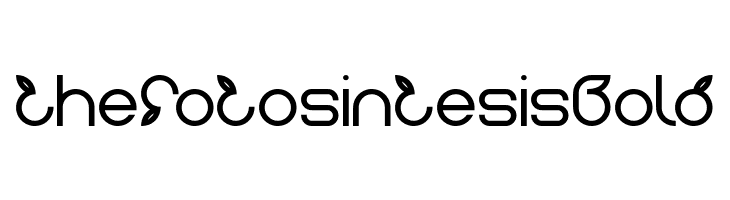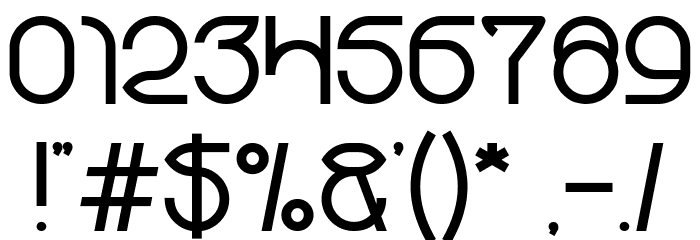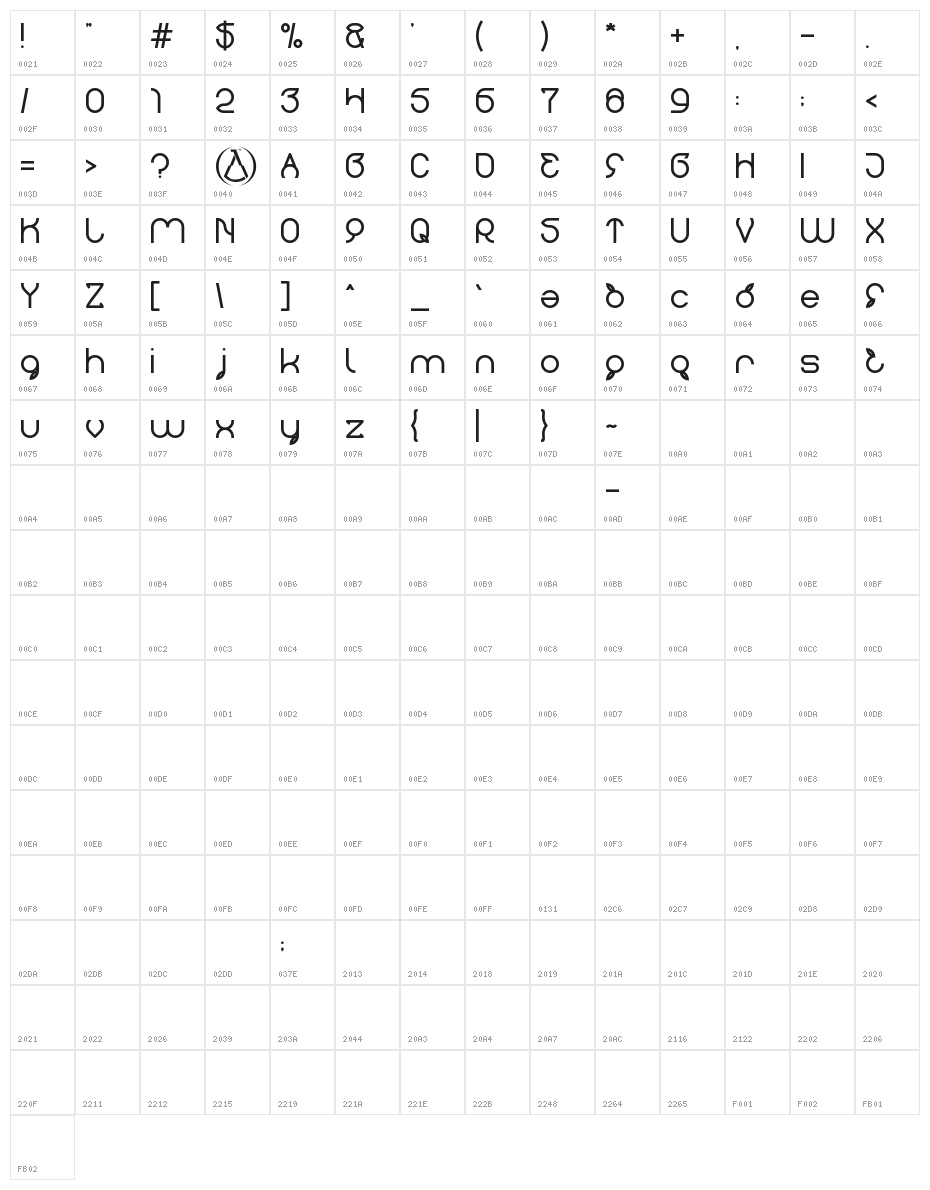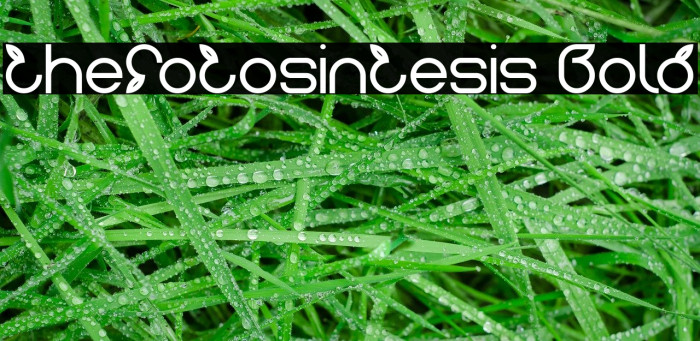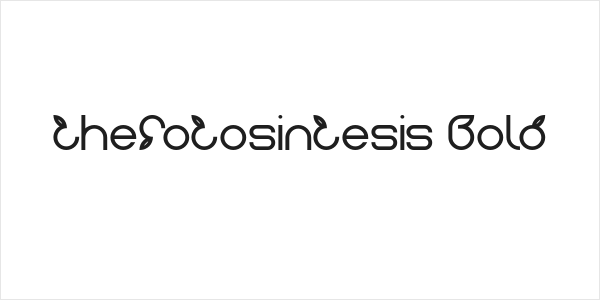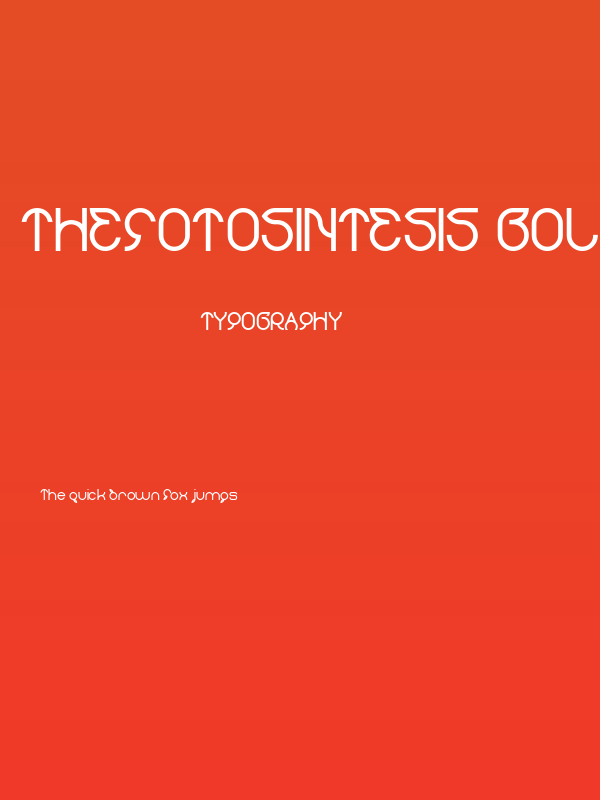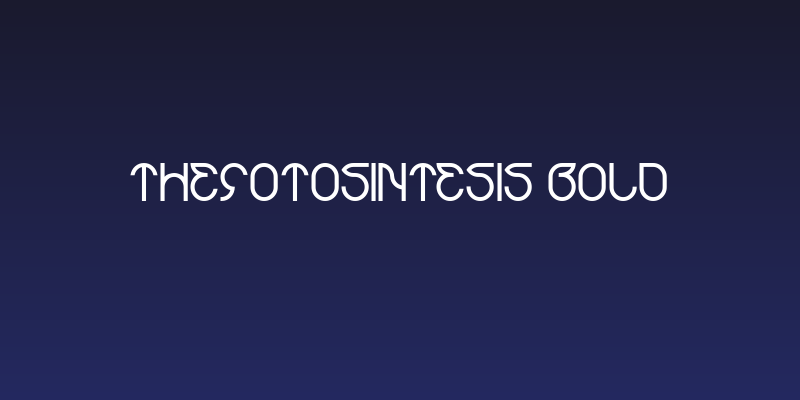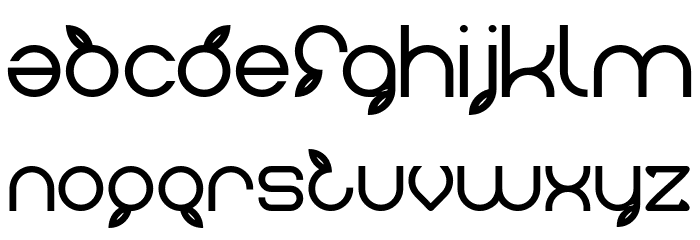
thefotosintesis Bold Font
This font features a unique and modern design with a playful twist. Each character is crafted with a combination of smooth curves and sharp angles, creating a dynamic and engaging appearance. The uppercase letters are bold and striking, while the lowercase letters incorporate leaf-like elements, adding a touch of nature-inspired creativity. The numerals are consistent with the overall style, maintaining the bold and rounded aesthetic. Special characters are designed to complement the alphabet, ensuring a cohesive look across all text. This font stands out with its artistic flair, making it suitable for projects that require a distinctive and memorable typeface.
A bold, modern font with playful, nature-inspired elements.
• Proposed Projects: Ideal for branding, logos, posters, and creative design projects that seek a unique and artistic touch.
• Category: Decorative/Display
• Overall Style: Modern
• Use Case: Logos, Headlines, Posters